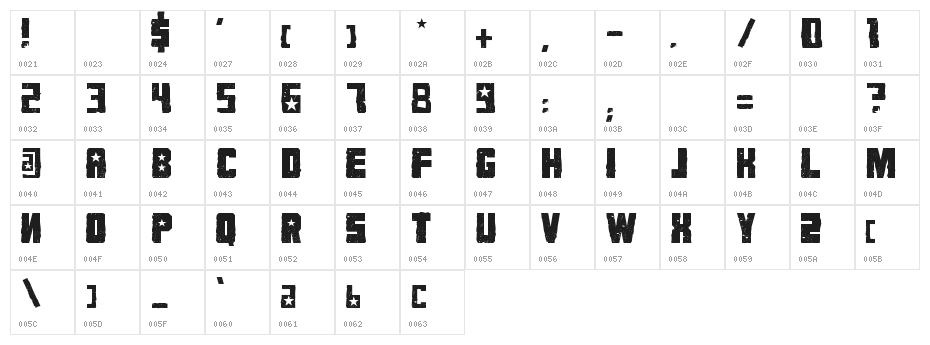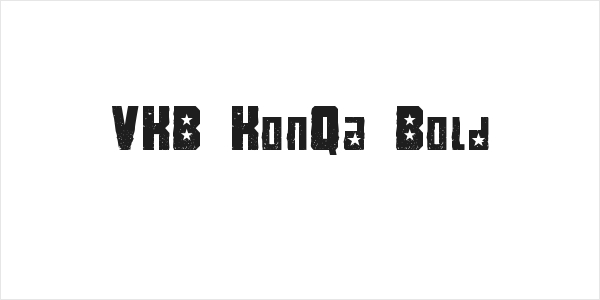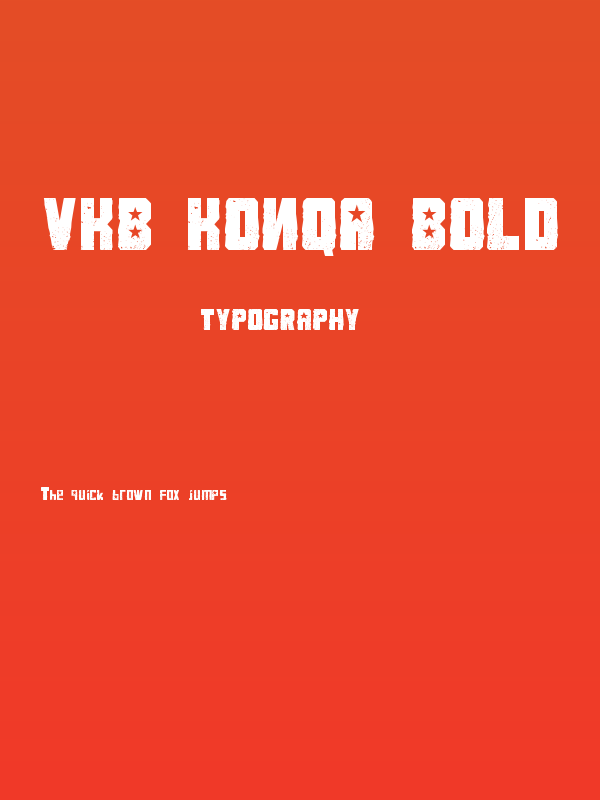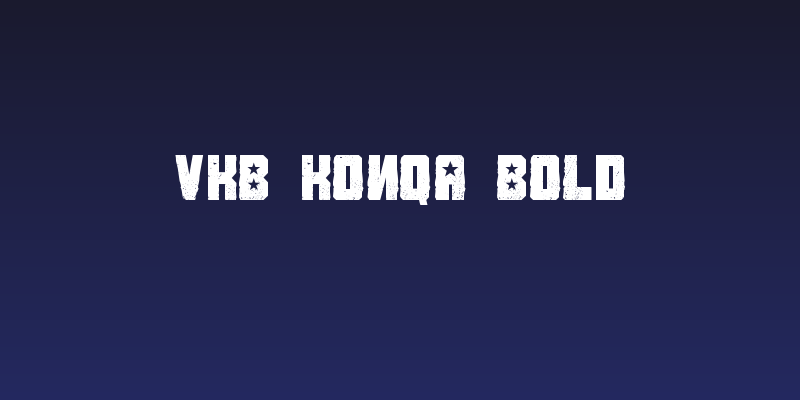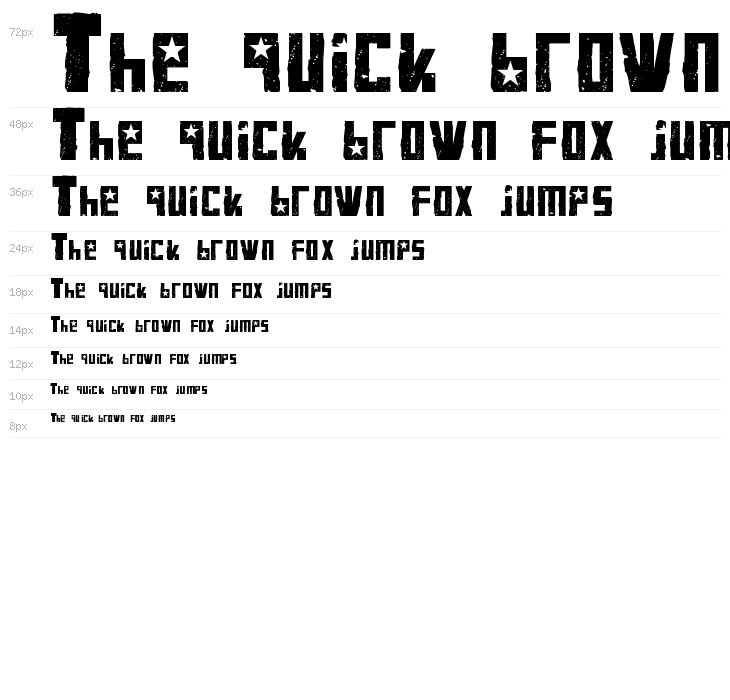
VKB KonQa Bold Font
VKB KonQa Bold Description
This bold, decorative font features a distressed, grunge style with a unique texture that gives each character a worn, rugged appearance. The uppercase and lowercase letters are consistent in their boldness, with some characters incorporating star shapes as part of their design, adding a playful and distinctive touch. The numerals and special characters maintain the same distressed aesthetic, ensuring a cohesive look across all glyphs. This font's bold and textured style makes it ideal for projects that require a strong visual impact.